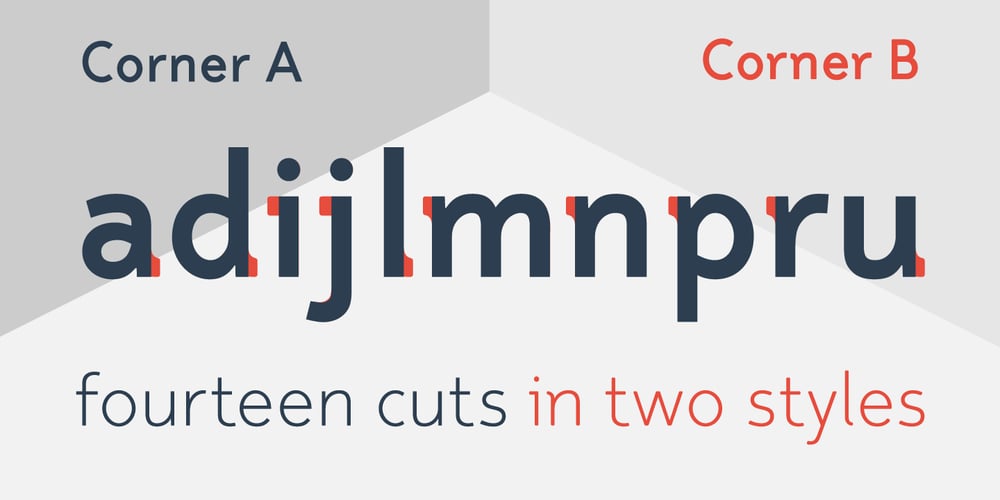
Corner Font Family was designed by Michael Herold and published by URW Type Foundry. Corner contains 28 styles and family package options. A unique kind of type by Michael Herold: The 14 cuts of Corner are equally distributed to the two style variants A and B. From Thin to Extra Bold, variant A comes with technical and pure forms while B appears with a soft, more personal character. In combination, the two variants add up to a highly versatile family which is very well suited for branding purposes, thanks to its diverse forms of expression. Eine besondere Schriftfamilie von Michael Herold: Die 14 Schnitte der Corner sind auf die beiden Stilvarianten A und B verteilt. Von Thin bis Extra Bold kommt die Corner im Stil A mit technischen, reinen Formen und im Stil B mit weichem, persönlicherem Charakter. Als Kombination ergibt sich eine sehr vielfältige Familie, die sich mit ihren verschiedenen Ausdrucksformen besonders fürs Branding eignet.